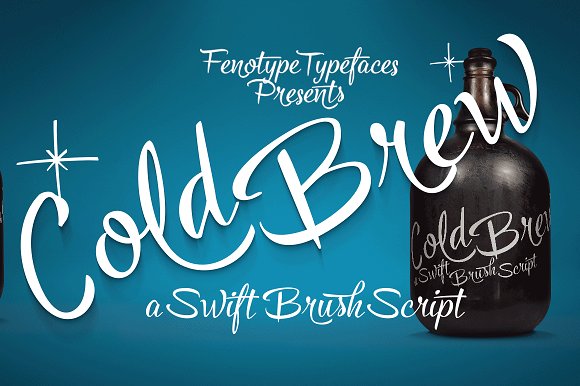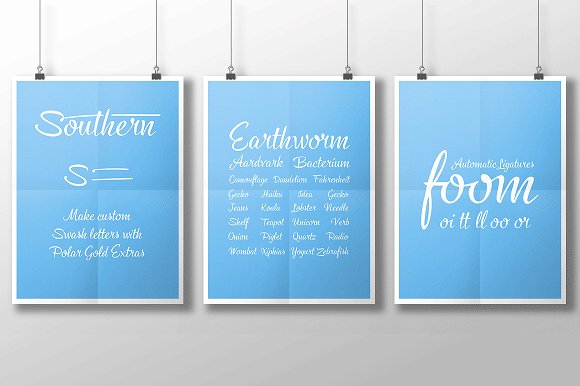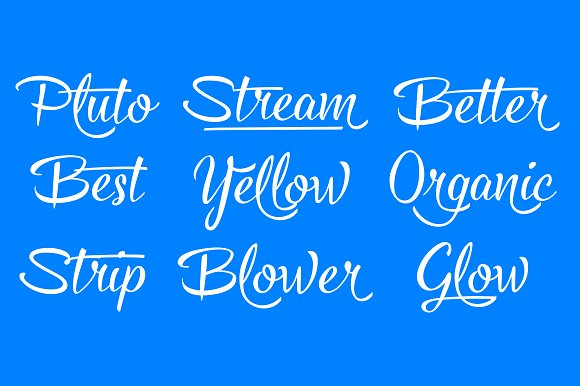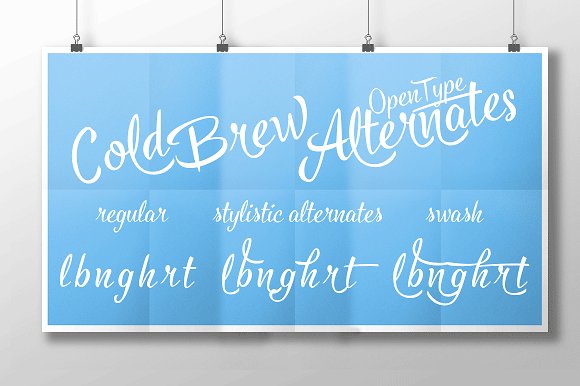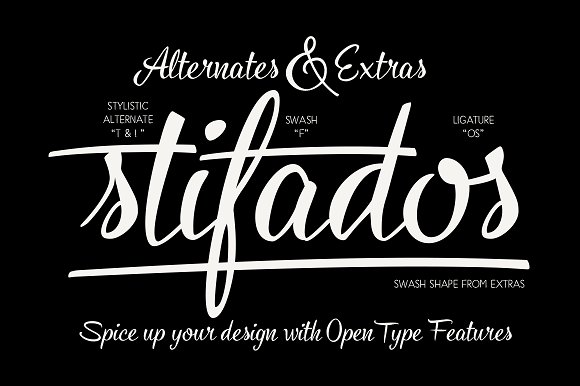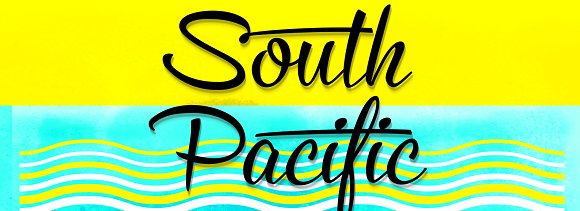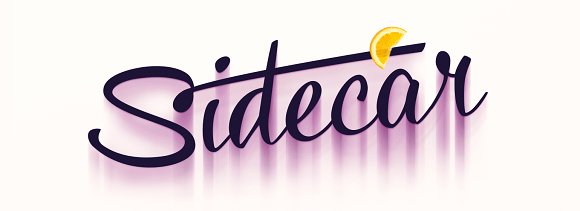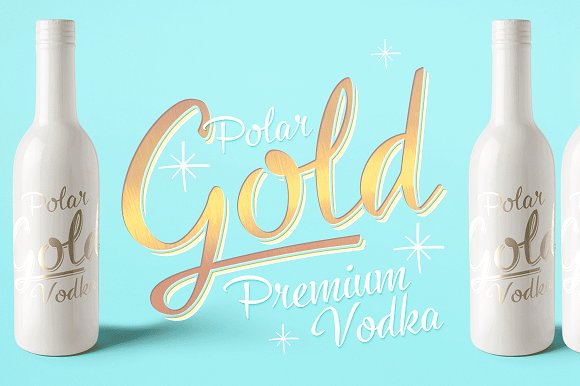
Cold Brew font trio +extras
Cold Brew is a swift brush script family of three weights and a set of extras. Cold Brew is based on hand drawn letters polished with care to retain the vivid appearance of ink brush.
Cold Brew is equipped with OpenType features to give you tools for custom-looking design: turn on Stylistic Alternates or Swash in any OpenType savvy program for flashier letters or manually select from even more Alternates from Glyph Palette.